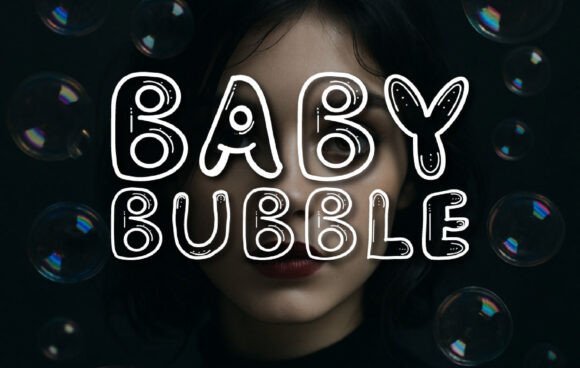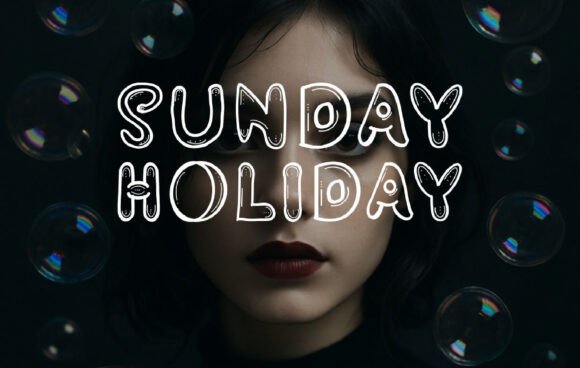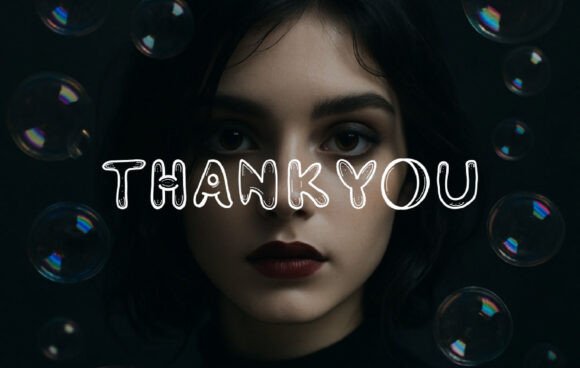
The Birth of a Beautiful Design
Have you ever stared at a blank page, waiting for the perfect font to emerge and bring your creative vision to life? That’s exactly what happened to us when we stumbled upon the Baby Bubble Font. Its charming, handwritten style is like a warm hug for your design – inviting, approachable, and full of character.
Expertly designed to be a true favorite, the Baby Bubble Font has the potential to take your creative ideas to the highest level. Whether you’re crafting magazine headlines, social media posts, or wedding invitations, this versatile font is sure to impress. Its legibility and romantic touch make it perfect for a wide range of designs, from branding to greeting cards.
Baby Bubble Font Key Features
- Font Styles: Baby Bubble Font comes in 6 different font styles, including regular, bold, italic, bold-italic, and two additional playful styles.
- Character Set: The font includes a wide range of characters, including uppercase and lowercase letters, numbers, punctuation marks, and special symbols.
- Unique Characteristics: This font features a unique, playful design with rounded edges and a bubbly feel, making it perfect for creating a fun and whimsical atmosphere in designs.
Designer Review: Baby Bubble Font
Overall, I think the Baby Bubble Font is a sweet addition to any design project. ✨ The rounded edges and bubbly feel make it perfect for children’s books, nursery decorations, or any other project that needs a touch of whimsy.
- The font is incredibly versatile and can be used for both headings and body text, making it a great choice for a wide range of designs.
- The rounded edges give the font a soft and playful feel, which is perfect for designs that need to appeal to a younger audience.
- The font is also highly customizable, with a range of sizes and styles to choose from.
However, I do have a few concerns about the font. ⚠️ While it’s great for designs that need a playful feel, it may not be the best choice for more serious or professional projects.
- The font can feel a bit too childish for some designs, and may not be suitable for more mature or complex projects.
- The font may not be as legible in smaller sizes, which could be a problem for designs that need to include a lot of text.
Overall, I think the Baby Bubble Font is a fun and playful addition to any design project, but it’s not without its limitations. With a bit of caution and careful consideration, it can be a great choice for the right designs.
Getting the Most Out of Baby Bubble Font
To get the most out of the Baby Bubble Font, consider the following tips:
- Use it for playful and whimsical designs.
- Pair it with bright and bold colors for a fun and eye-catching look.
The Baby Bubble Font is commonly used for:
- Playful social media posts and advertisements.
- Whimsical branding and packaging designs.
Alternatives to “Baby Bubble Font” for Designers
Pacifico is a beautiful, elegant script font that is perfect for creating a romantic and sophisticated look. It’s ideal for use in wedding invitations, branding, and packaging designs. Pacifico has a similar feel to Baby Bubble Font, but with a more refined and polished look.
Great Vibes is a modern, cursive script font that is great for creating a fun and playful atmosphere. It’s perfect for use in social media graphics, advertisements, and promotional materials. Great Vibes has a similar playful feel to Baby Bubble Font, but with a more contemporary and edgy look.
Carolyna Pro is a elegant, modern script font that is perfect for creating a luxurious and sophisticated look. It’s ideal for use in high-end branding, packaging, and advertising designs. Carolyna Pro has a similar elegant feel to Baby Bubble Font, but with a more modern and refined look.